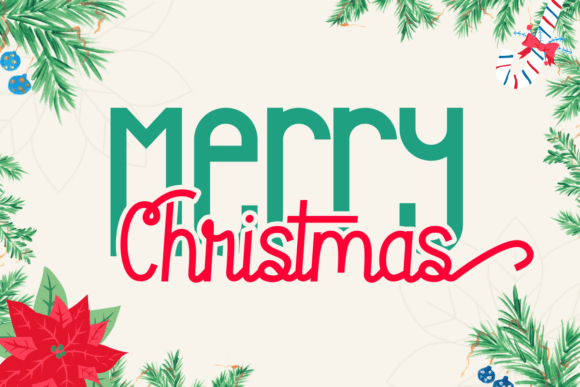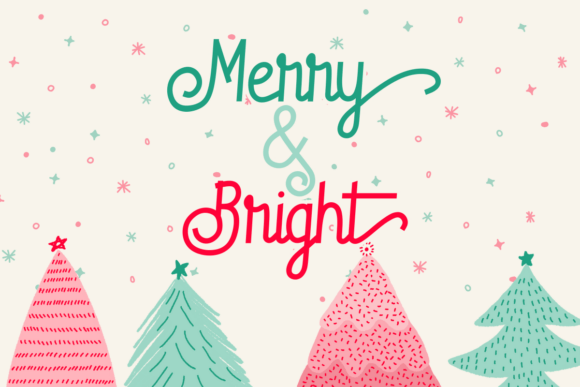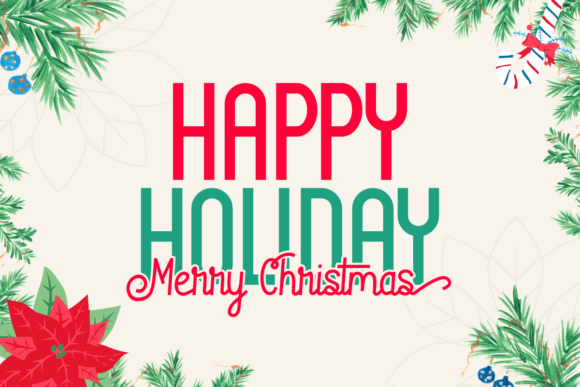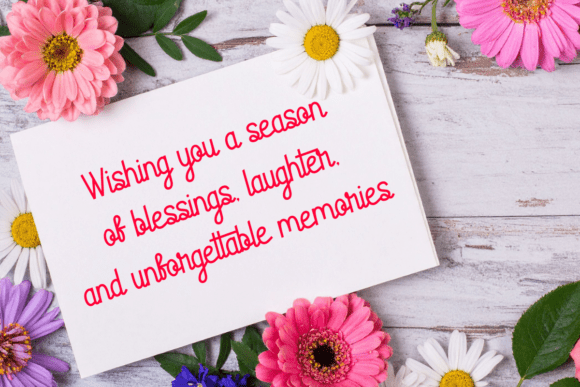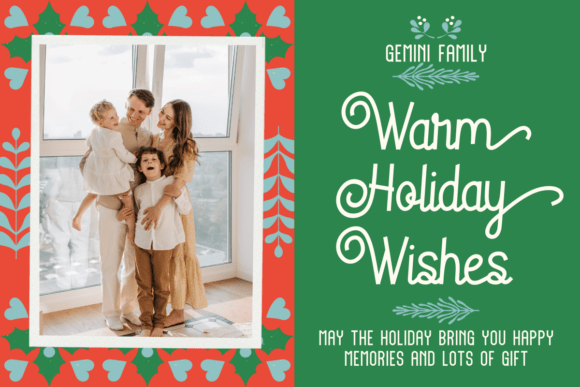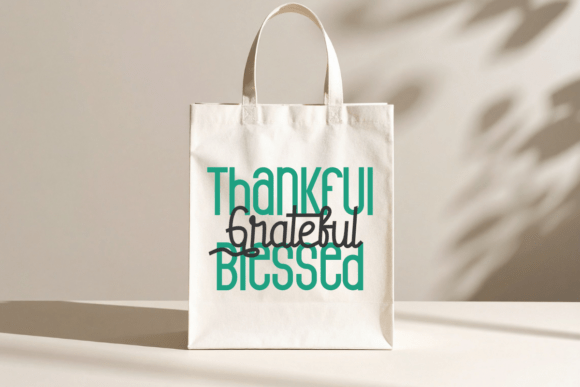
Deck the Halls with Holiday Cheer
As the holiday season approaches, we find ourselves surrounded by twinkling lights, cozy sweaters, and the unmistakable aroma of freshly baked cookies. For many creatives, this time of year sparks a surge of inspiration, and the urge to craft something special for loved ones and friends is overwhelming. Whether you’re a seasoned crafter or a DIY novice, the Holidays Whimsyshine Font is the perfect companion for your holiday projects.
This delightful duo font combines a playful script with a strong sans, creating a versatile and festive design element that’s sure to bring joy to any project. Whether you’re creating greeting cards, invitations, or wall art, the Holidays Whimsyshine Font adds a touch of warmth and magic to every design. Its friendly style makes it a favorite among crafting moms, teachers, and DIY enthusiasts, who appreciate its ease of use and unique flair.
Holidays Wimsyshine Font Key Features
- Font Family: Holidays Wimsyshine
- Character Set: Supports a wide range of languages, including Latin, Cyrillic, and Greek
- Unique Characteristics: Whimsical, hand-drawn design with a touch of magic and wonder; perfect for creating festive and playful content
Holidays Wimsyshine Font Review
I must say, I was initially drawn to the whimsical charm of the Holidays Wimsyshine Font. ✨ The delicate brushstrokes and playful flourishes give it a unique, hand-painted feel that’s perfect for adding a touch of magic to your designs. ✨ The font is also surprisingly versatile, working well for both digital and print applications. ✨
However, I do have a few concerns that prevent me from giving it a full thumbs-up. ⚠️ First, the font can be a bit challenging to read at smaller sizes, especially when used in body text. This might limit its use in situations where legibility is a top priority. ⚠️ Additionally, some of the characters may not be fully compatible with certain operating systems or devices, which could lead to unexpected rendering issues. ⚠️
Overall, I think the Holidays Wimsyshine Font is a wonderful addition to any designer’s toolkit. While it may have some limitations, its unique charm and versatility make it a great choice for projects that require a touch of whimsy and personality.
- Unique, hand-painted feel
- Delicate brushstrokes and playful flourishes
- Versatile for both digital and print applications
- May be challenging to read at smaller sizes
- May have compatibility issues with certain operating systems or devices
To get the most out of the Holidays Wimsyshine font, use it for festive and whimsical designs. Combine it with bold colors and playful graphics to create eye-catching visuals.
Use the Holidays Wimsyshine font for:
- Christmas and holiday card designs
- Festive social media graphics and posts
- Whimsical advertising and marketing materials
Alternatives to Holidays Wimsyshine Font
Great Vibes Font is a beautiful, modern calligraphy font that is perfect for creating a whimsical and elegant look. It is ideal for use in wedding invitations, greeting cards, and other special occasion designs. Compared to Holidays Wimsyshine Font, Great Vibes Font has a more refined and sophisticated feel, making it suitable for a wider range of design applications.
Lobster Font is a fun, casual script font that is great for creating a playful and lighthearted atmosphere. It is perfect for use in advertisements, social media graphics, and other designs that require a carefree and energetic feel. While Holidays Wimsyshine Font has a more polished and elegant look, Lobster Font is more relaxed and informal, making it ideal for designs that require a sense of fun and spontaneity.
Pacifico Font is a beautiful, elegant script font that is perfect for creating a sophisticated and luxurious look. It is ideal for use in high-end branding, packaging designs, and other applications where a sense of refinement and elegance is required. Compared to Holidays Wimsyshine Font, Pacifico Font has a more refined and sophisticated feel, making it suitable for a wider range of design applications.